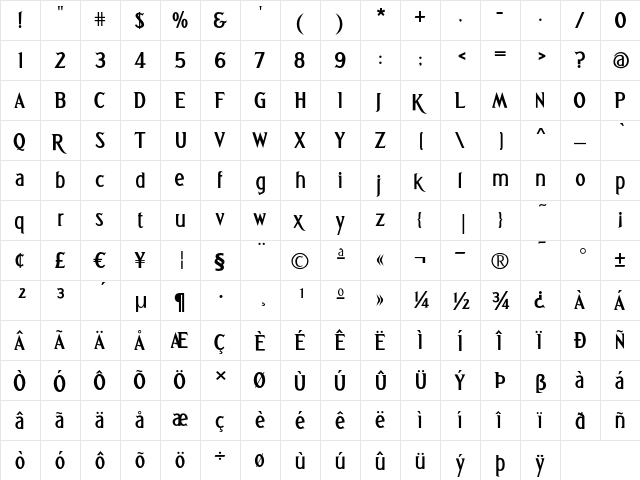
Greetings Bold Regular Font Preview
Greetings Bold Regular
Greetings Bold Regular Font Details
Design Context for Greetings Bold Typeface
Greetings Bold offers clean, dependable letterforms without strong stylistic allegiance, making it a practical choice for designers who need flexibility. The heavy weight commands attention and anchors typographic hierarchies.